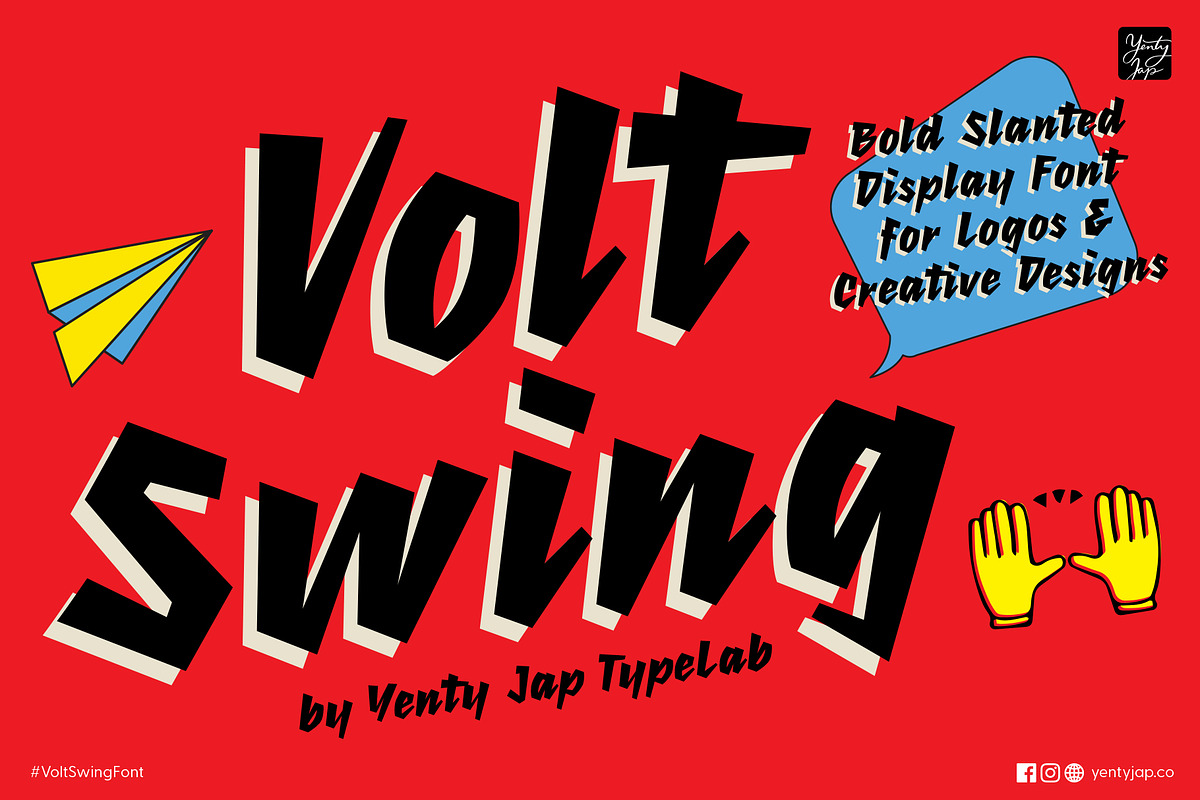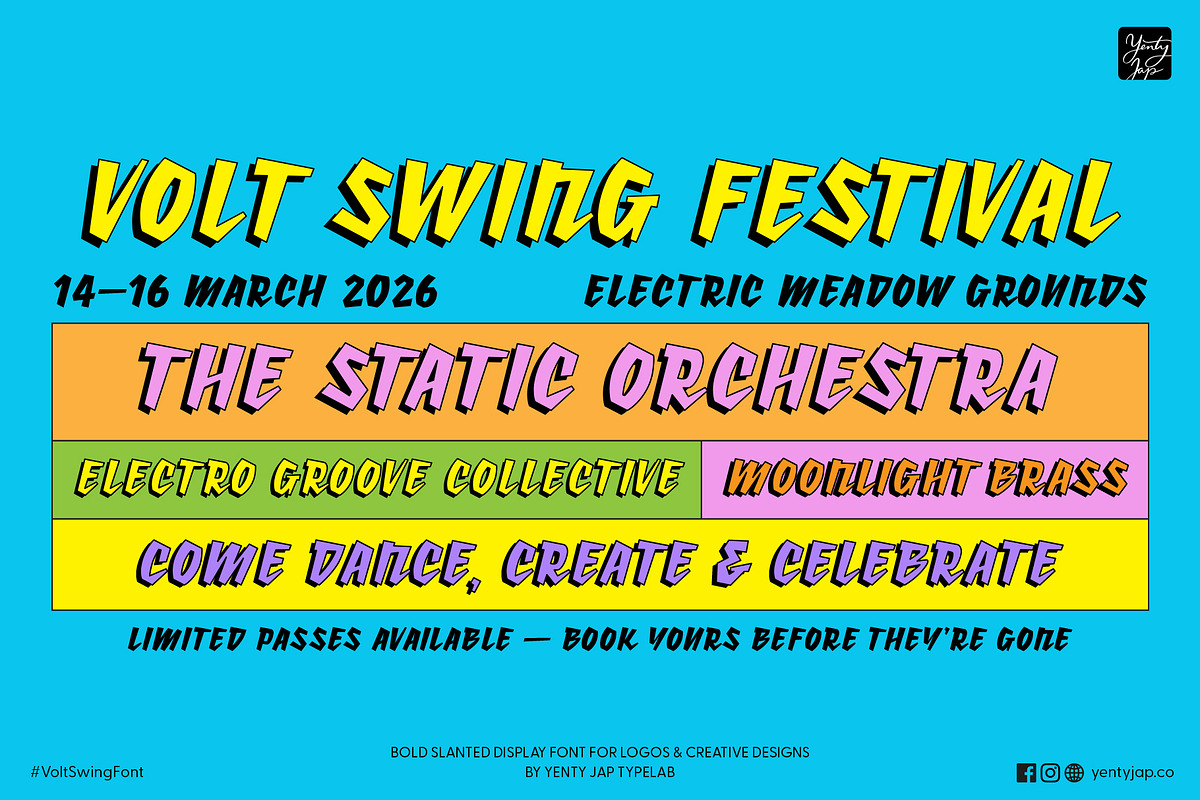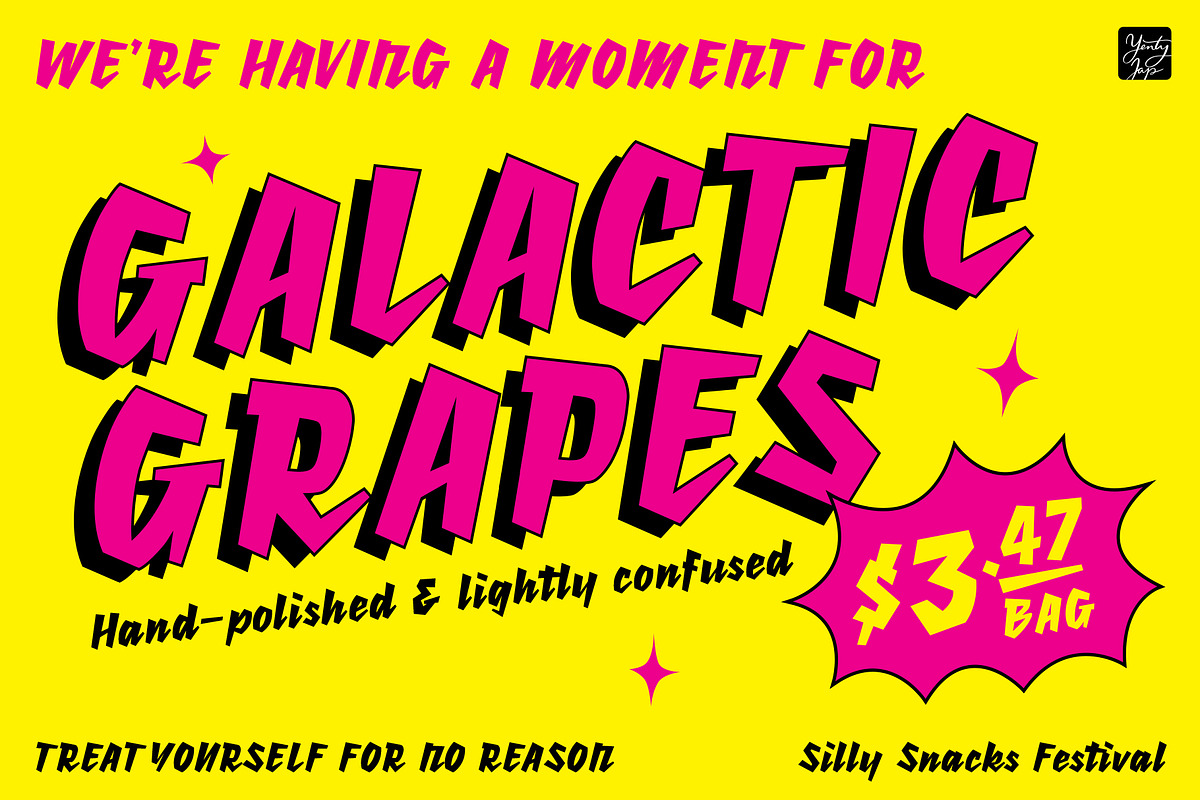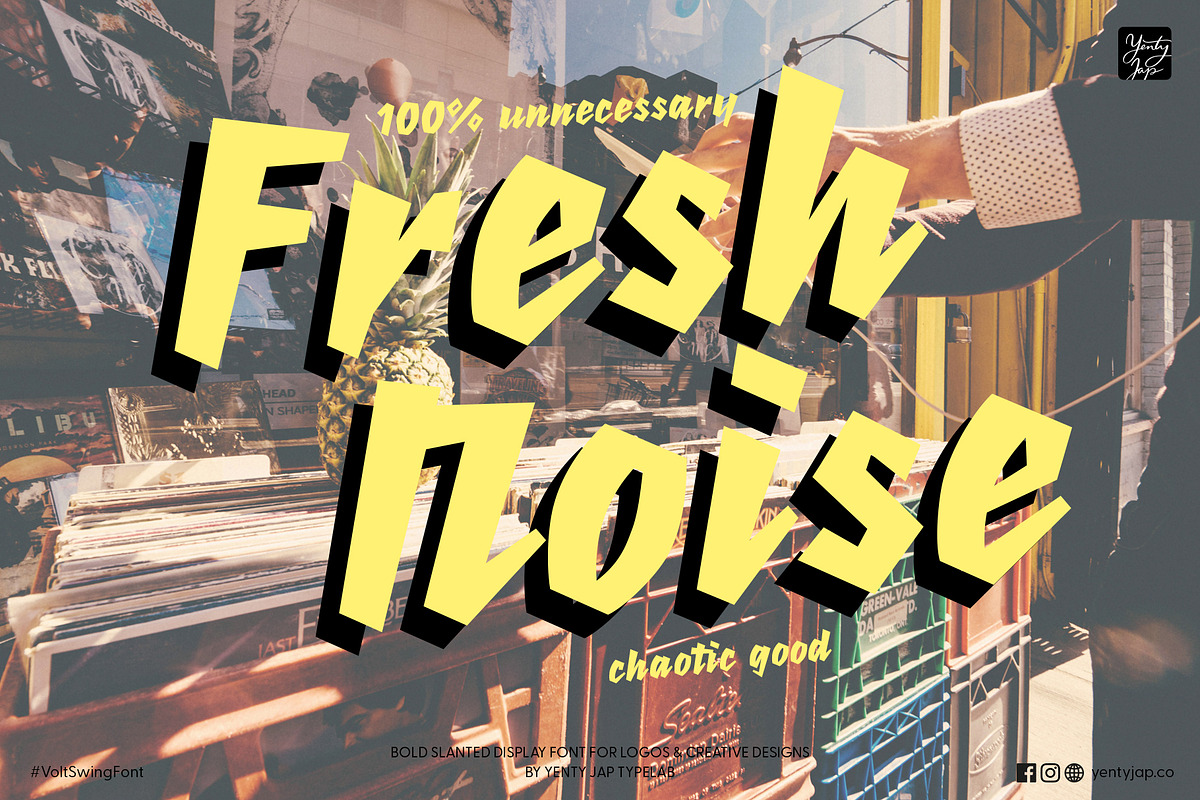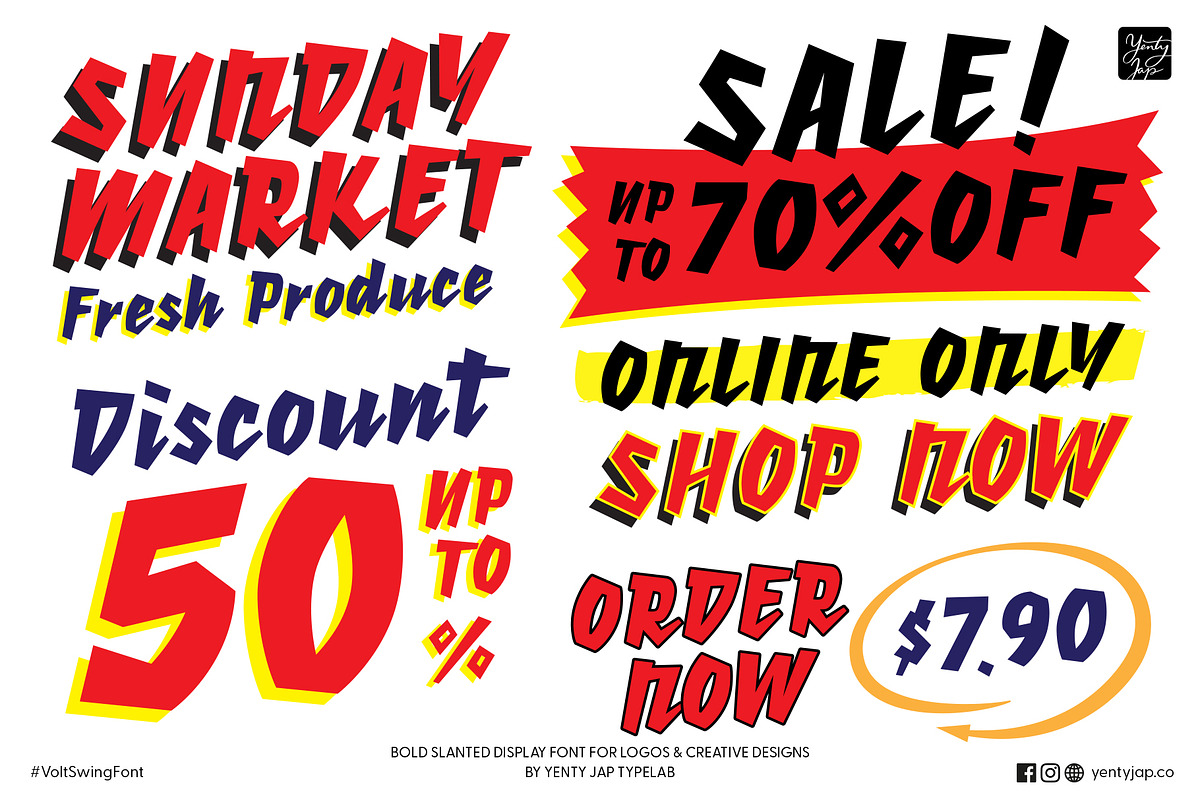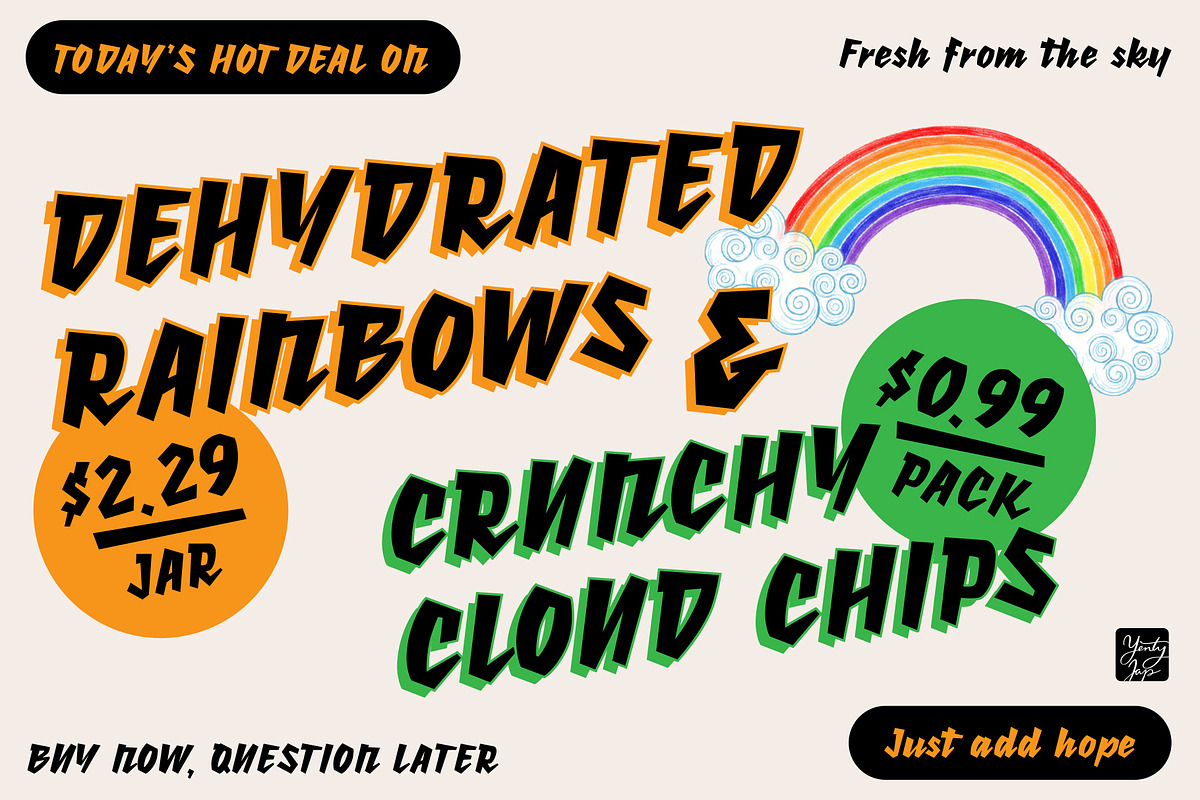
YJC Volt Swing Font
Every letter leans forward like it’s cheering you on — “Go on, you’ve got this!” — and honestly, that’s exactly the energy it brings to your designs. It’s confident, playful, and full of that charged-up charm that makes people stop scrolling and pay attention (in the friendliest way, of course).
With its chunky strokes, sharp angles, and lively slant, YJC Volt Swing is perfect for projects that need a loud-but-loving voice:
eye-catching logos and branding,
bold posters, album covers, sports graphics,
fun social media layouts,
stylish merch & apparel,
modern invitations & event designs, and
any moment where your message deserves a little extra electricity and a warm hug on the side.
A full set of uppercase and lowercase letters
Numbers, punctuation, and symbols
It’s honest, energetic, and ready to help your words stand tall, shine bright, and swing in style. Go ahead — plug it into your project and watch the sparks fly.